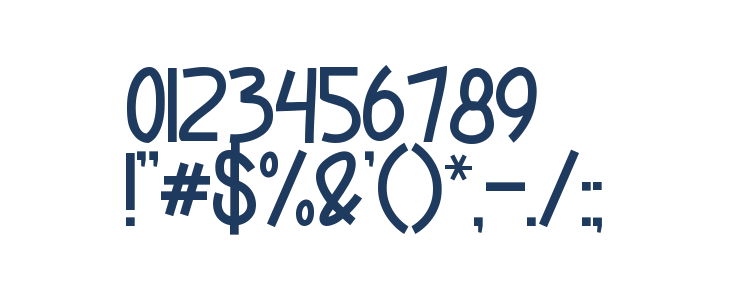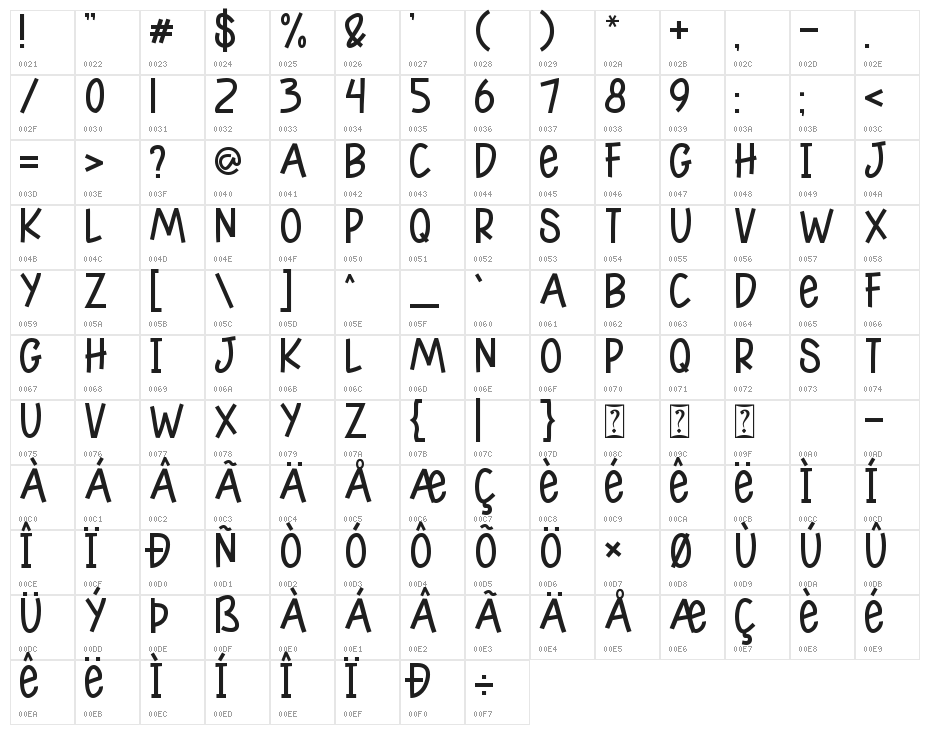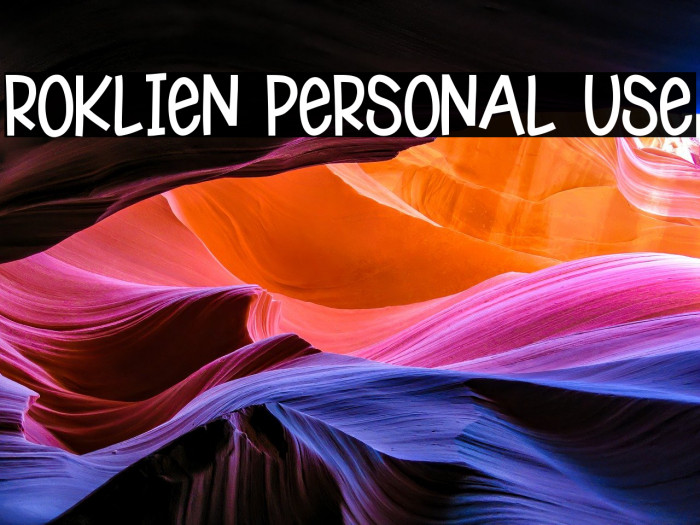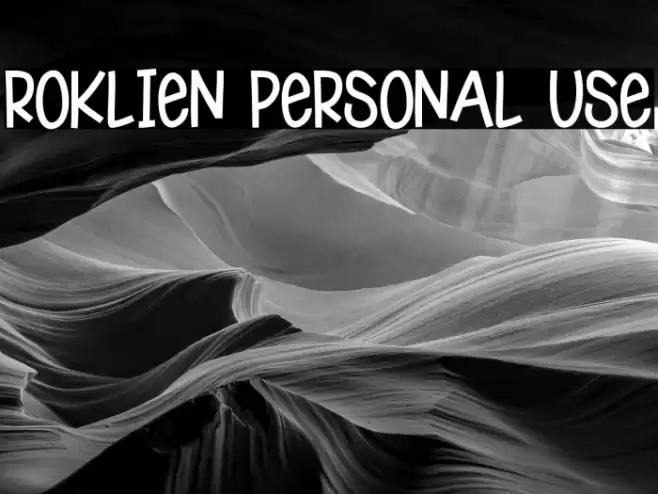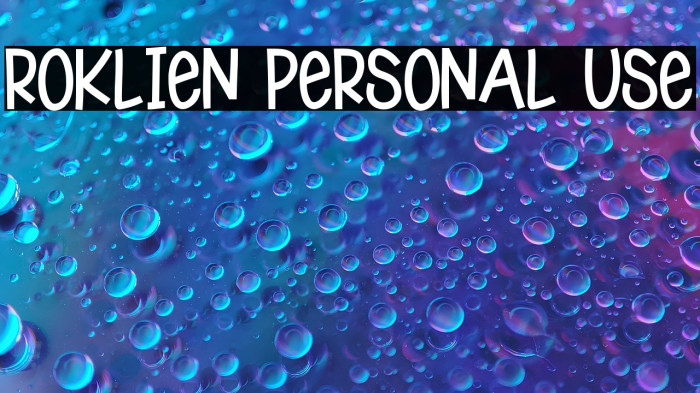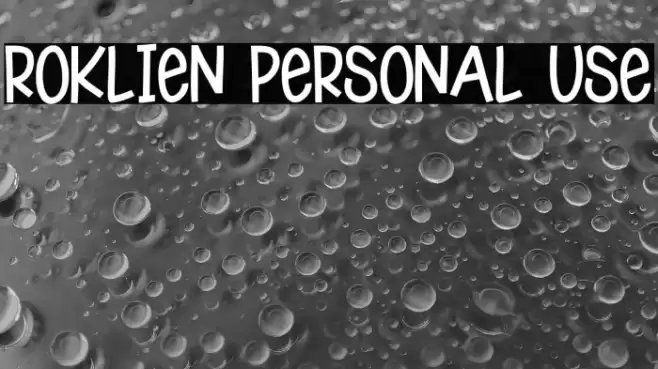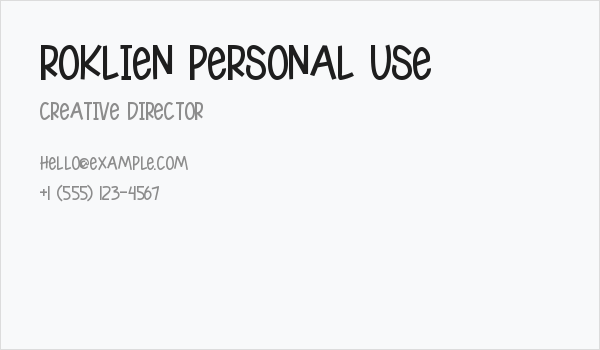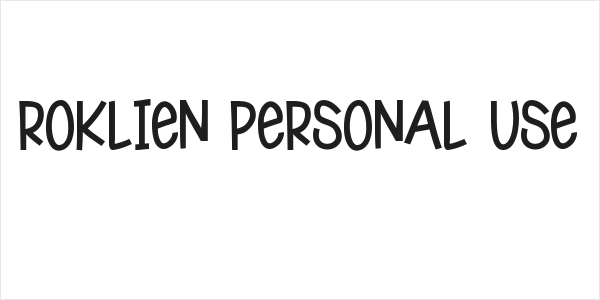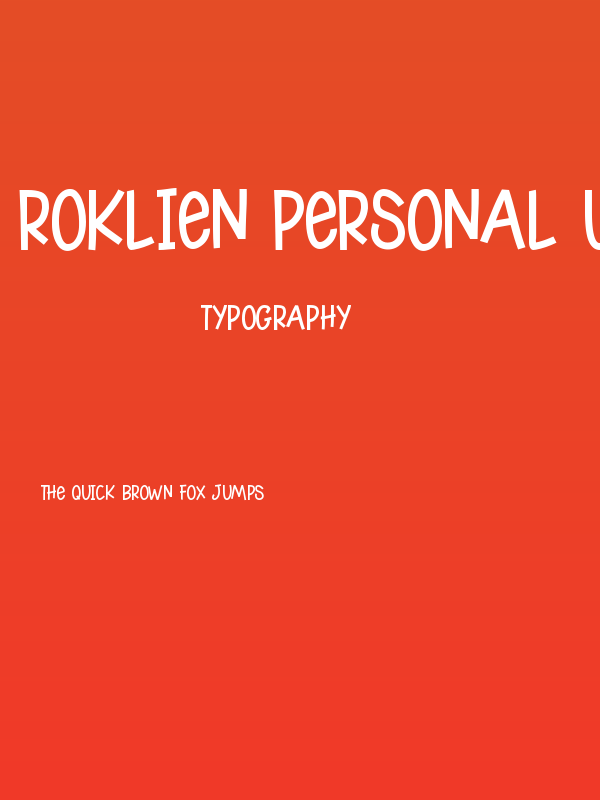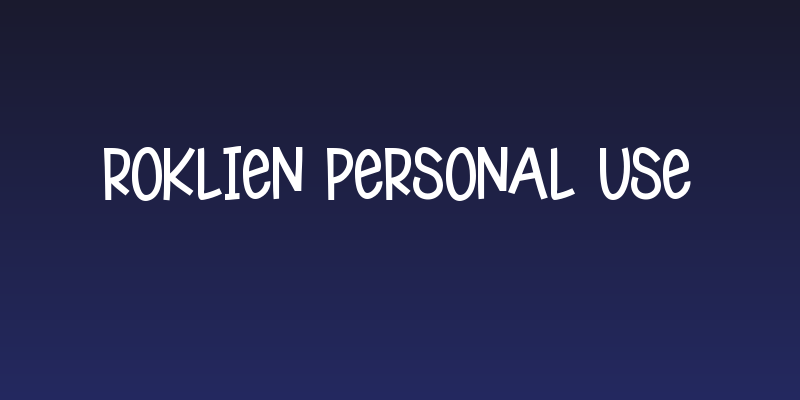
Roklien Personal Use Font
Roklien Personal Use Description
This playful and energetic font features a hand-drawn aesthetic with irregular, slightly tilted characters that convey a sense of whimsy and creativity. The uppercase and lowercase letters maintain a consistent style, with rounded edges and a casual, informal appearance. The numbers and special characters complement the alphabet with similar playful characteristics. The font's unique style makes it stand out, offering a friendly and approachable vibe suitable for various creative projects.